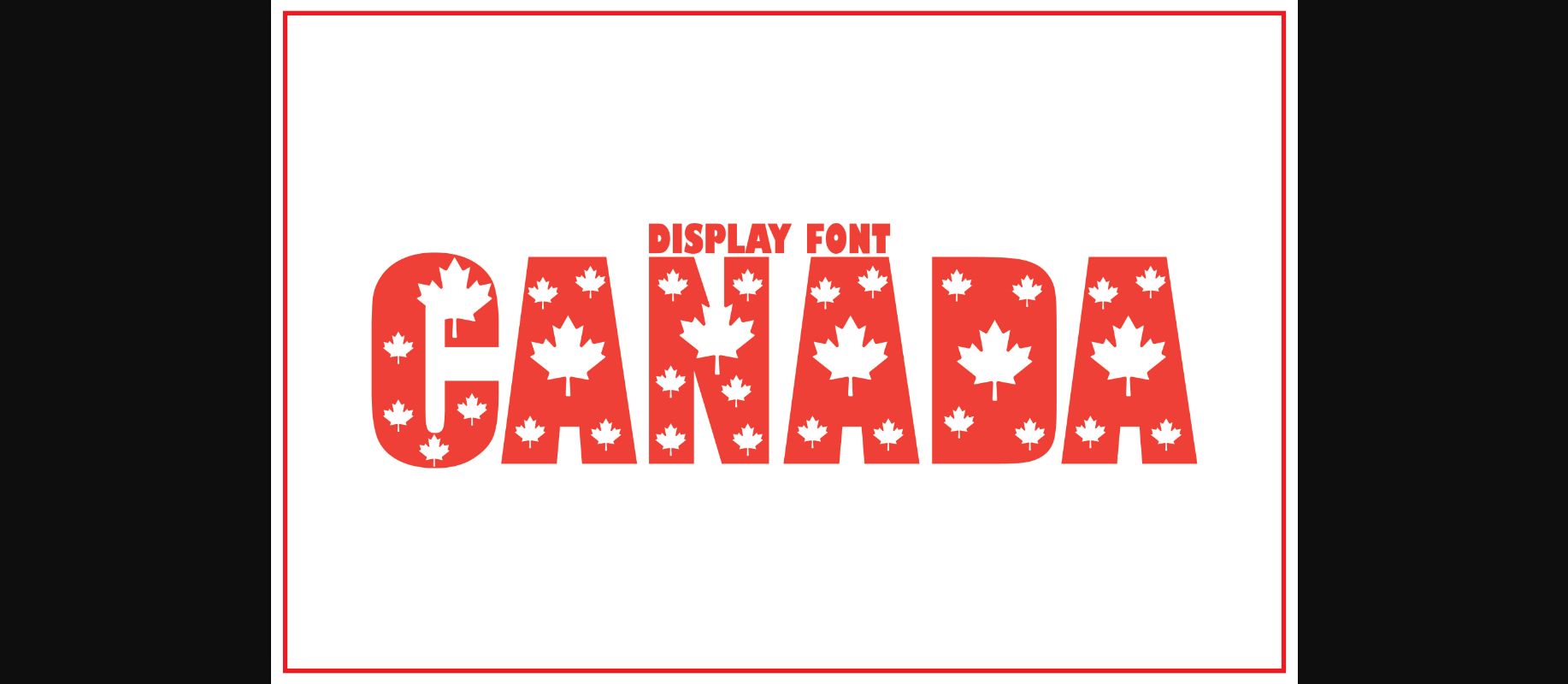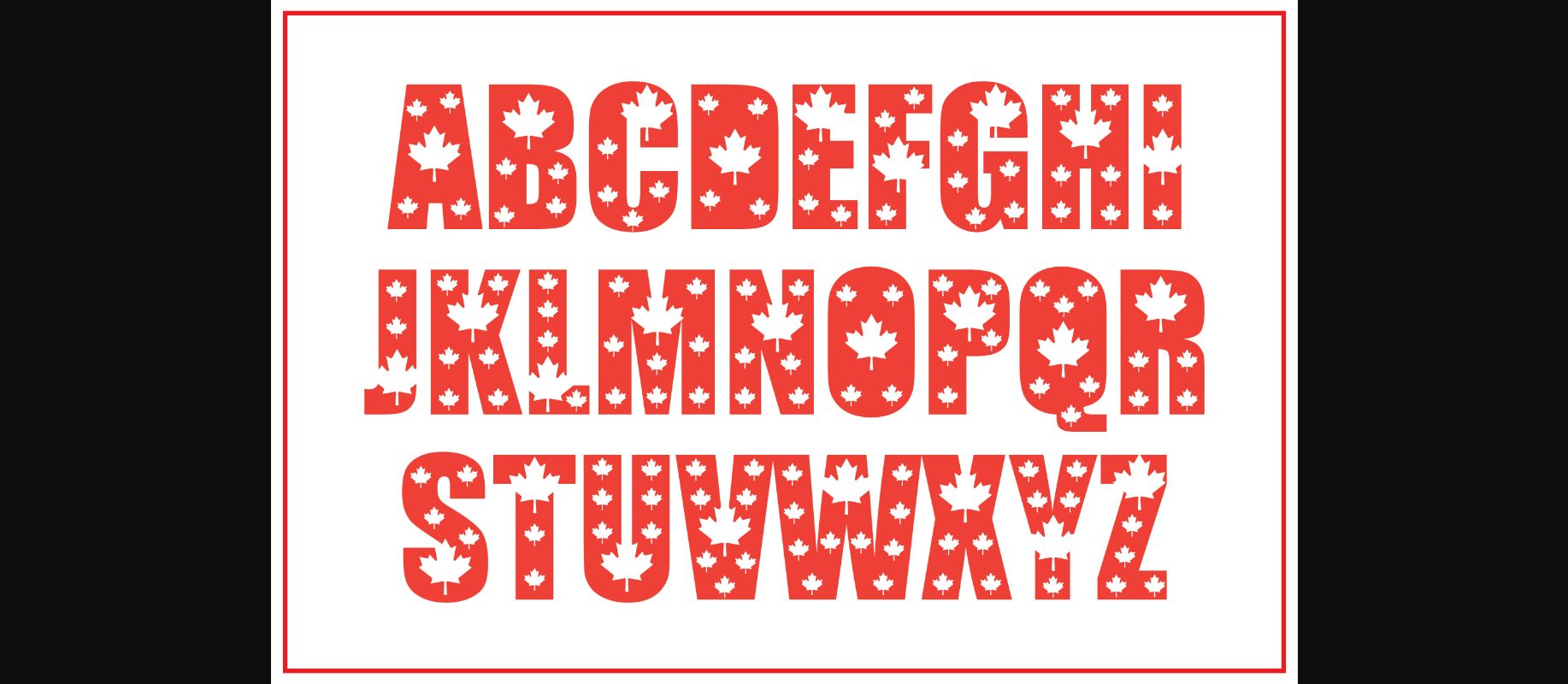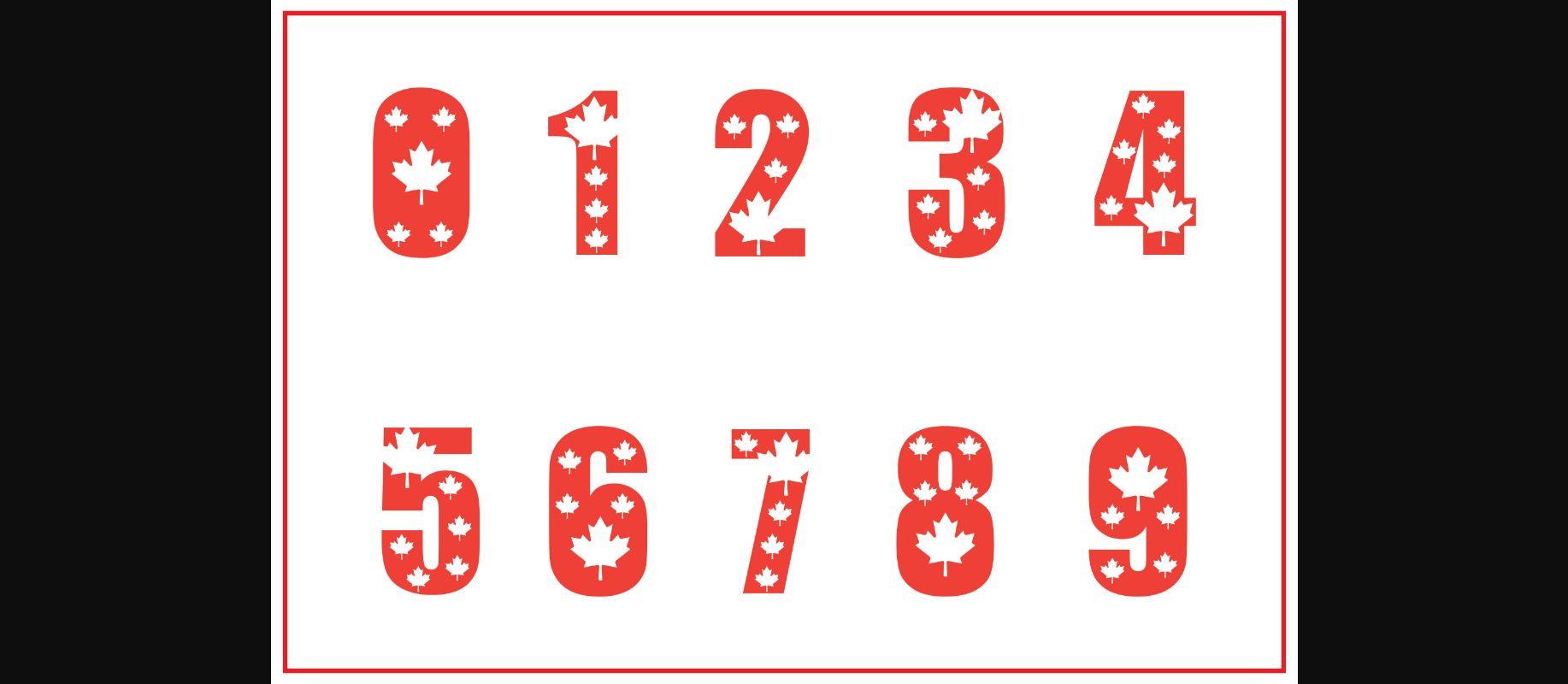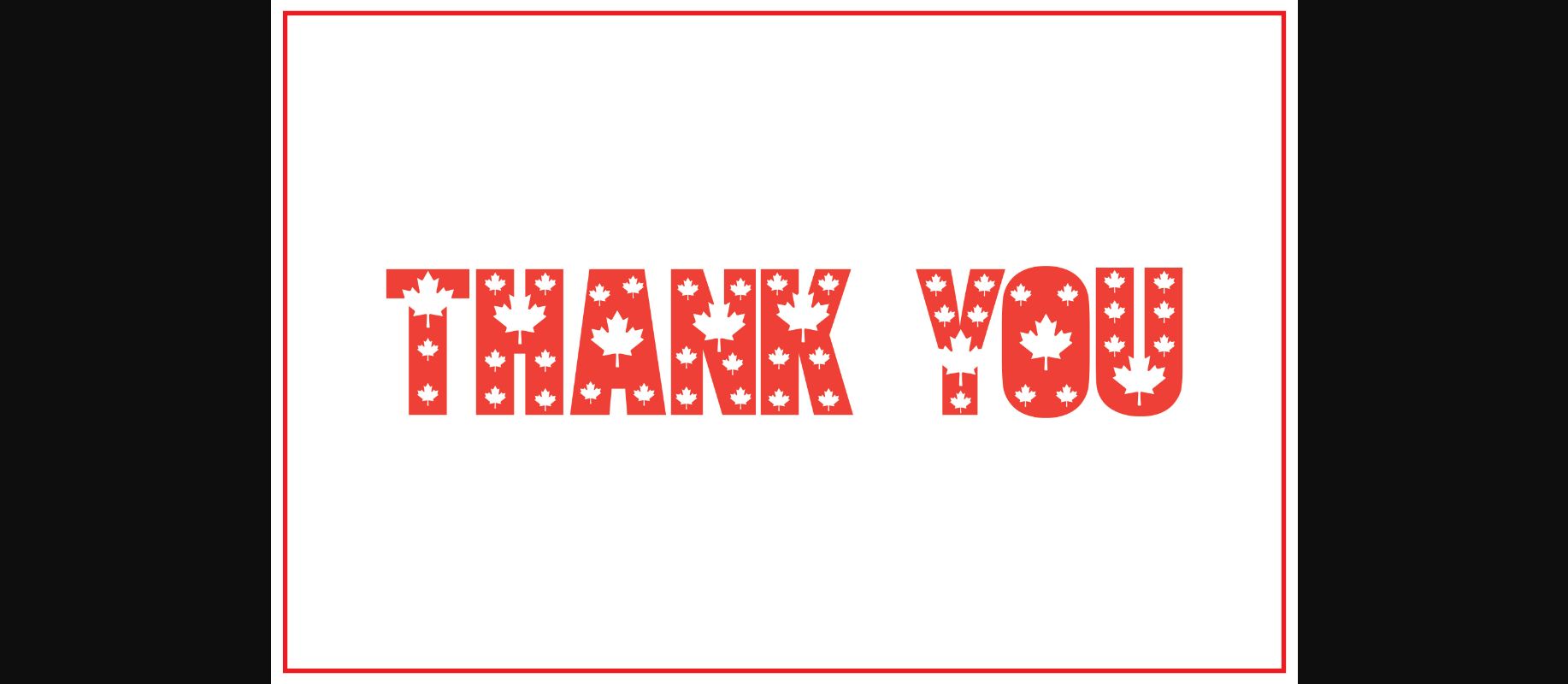
Canada Font
About Canada Font
Canada is a fun decorative font. It is perfectly suitable for any design or crafty idea! Add it confidently to your projects and you will love the results!